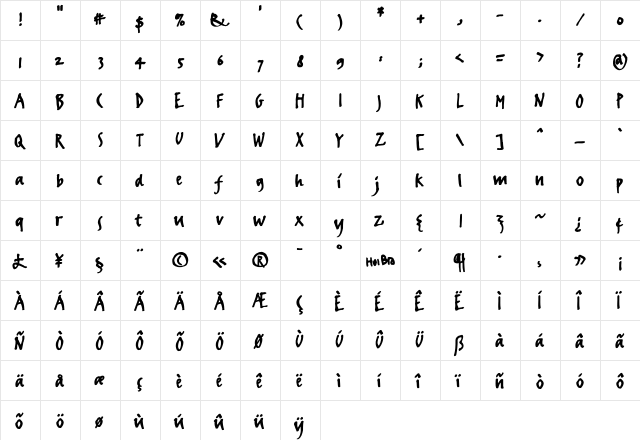
FFErikrighthand Medium Font Preview
FFErikrighthand Medium
Design Context for FFErikrighthand Typeface
FFErikrighthand flows with the natural rhythm of handwritten lettering, making it ideal for designs that call for warmth and personal expression.
Font Pairing: Combine FFErikrighthand with a simple geometric sans for maximum contrast — the tension between flowing curves and clean structure is a classic typographic pairing.
Pro Tip: Pair FFErikrighthand with a clean sans-serif for supporting text. The contrast between fluid script and geometric structure creates an elegant typographic hierarchy.